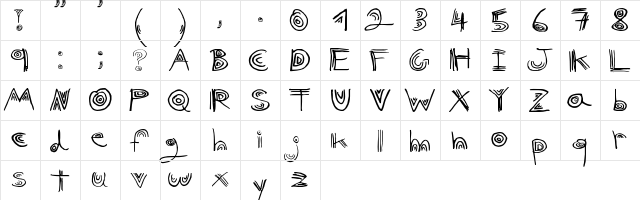
nuni Regular Font Preview
nuni Regular
Design Context for nuni Typeface
nuni is a composed and adaptable typeface that performs quietly and consistently across a wide range of design contexts.